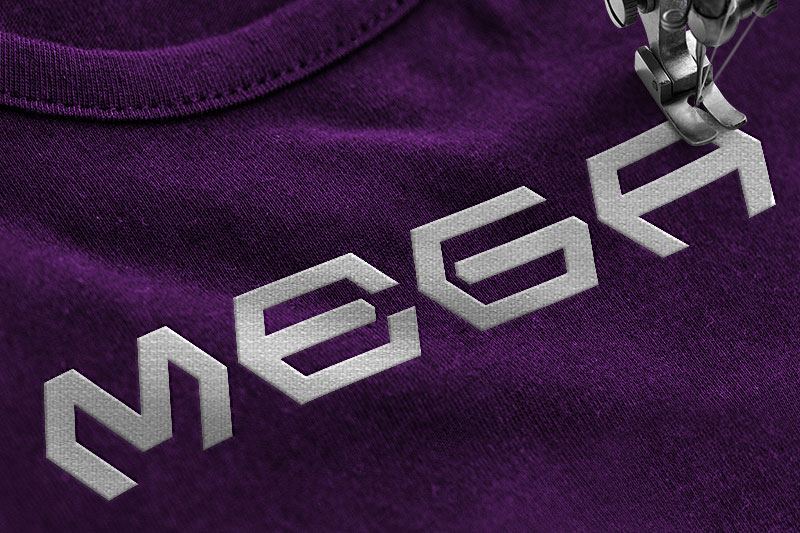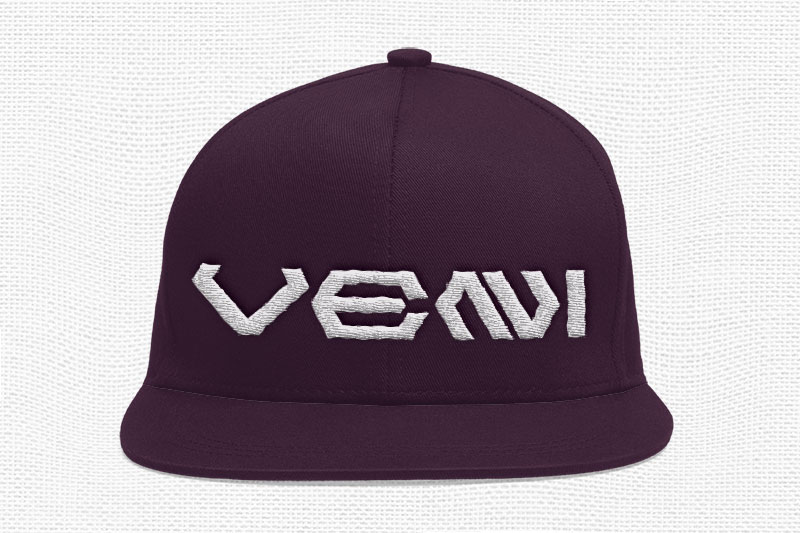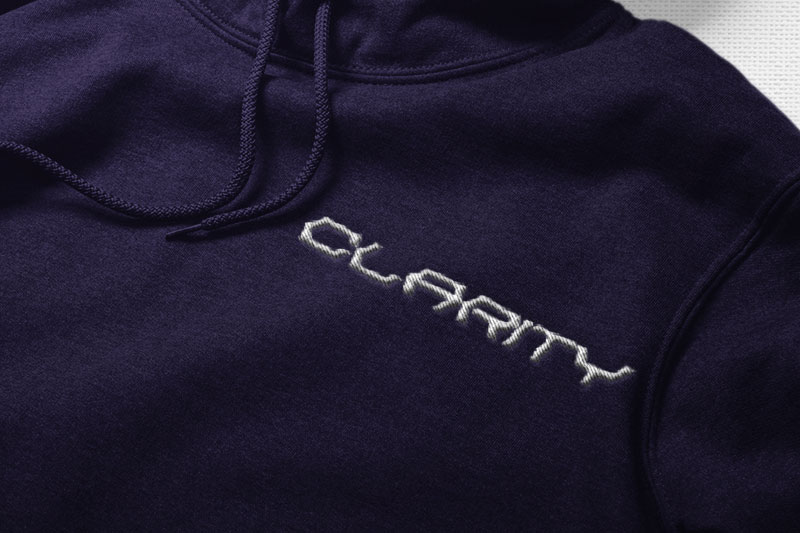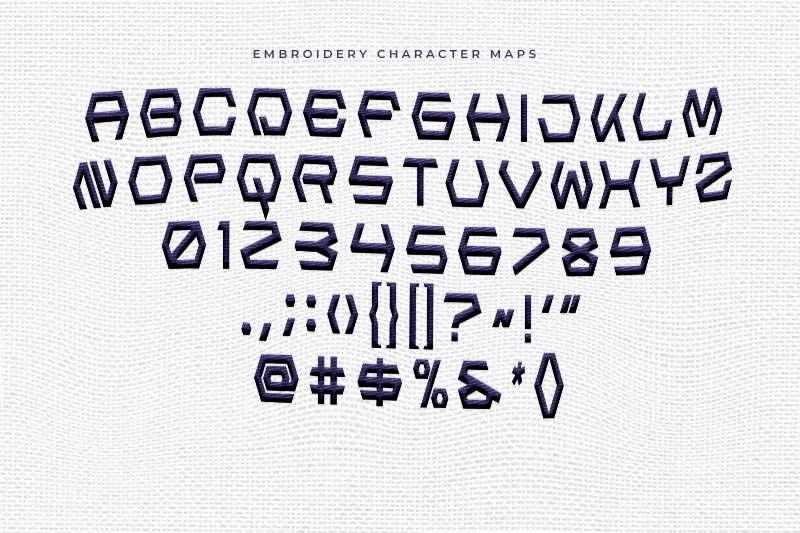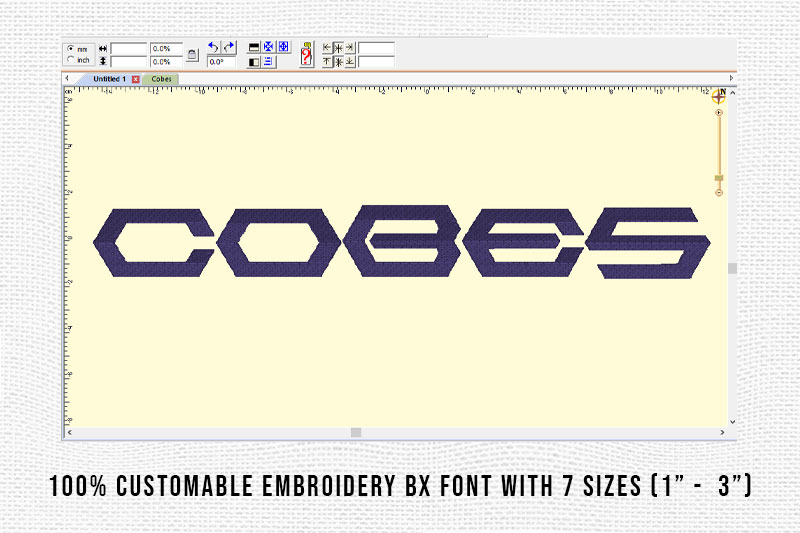
Cobes Embroidery Font comes as a part of the embroidery font. It has unique and interested characteristics. We can see how this font has a unique shapes. Cobes Embroidery Font is an illegible. However, it will be difficult to read if it is a small font size and viewed from a distance. You can use this font for embroidery and online font.
Font Kong provides Cobes Embroidery Font is the best font used to teenager needs. If you're a creative person and like to get busy with event preparations, you can use this font for making posters, invitation cards, decorations, and all kinds of banners. The unique look of this font can help you build a modern and more interesting atmosphere for your party.
Given the exciting characteristics it has created, Cobes Embroidery Font is one of the best fonts to use on hats, T-shirts, jackets, and hoodies. In addition, it is suitable to be combined with several of your lovely products, such as stickers for television, motorcycle, car, and bicycle. Font Kong provides Embroidery font for digital and print use. Both of them will not eliminate the element of cool and modern posed by Cobes Embroidery Font.
With various explanations of the advantages and uses of Cobes Embroidery Font, you will not regret using this font. It will be one type of font that must be considered to eventually become an option.